1. Metropolis
Metropolis font is designed by Josip Kelava from Melbourne, Australia. He says, “Using a double line technique, I wanted to create my own Art Deco style font that represented this era. The result is a bold, bumptious typeface with a stolidly calm disposition.”
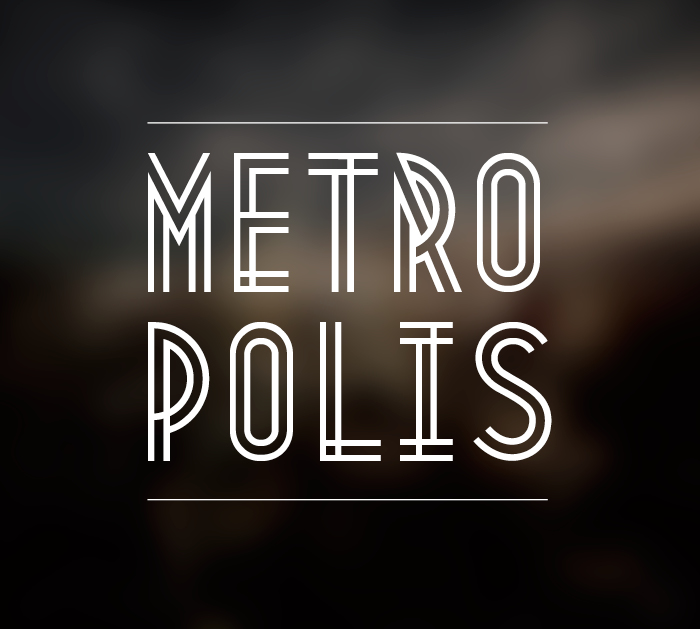
2. Geared
Geared is designed by Ben Dalrymple which is an industrial inspired Condensed Slab Serif in 4 weights -thin, regular, bold, and extrabold.
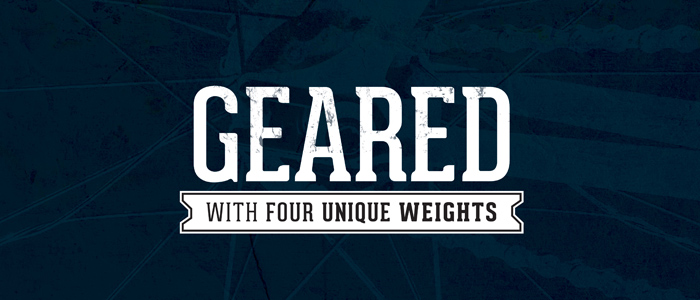
3. Intro
Intro is a great font that strongly express the geometric makeup and structure. The basic letters of the Alphabet like “A”, “O” and “H” are built or based on principles of simple geometric forms – triangles, circles and squares.
4. Forum
Forum font is an Antiqua with classic “Roman” proportions. It is intended for titles and headlines but can be used to set body texts too.
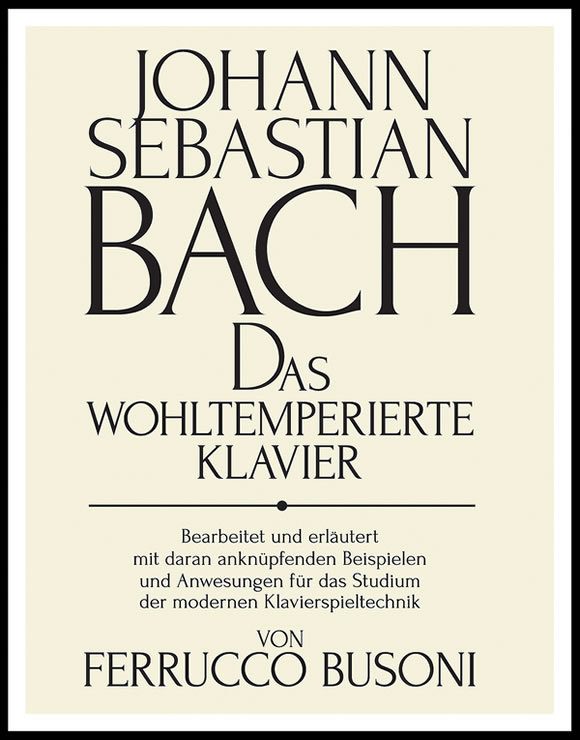
5. Prosto
Prosto is designed by Emelyanov Pavel that has multilanguage support and could be used as in titles, as in body text.
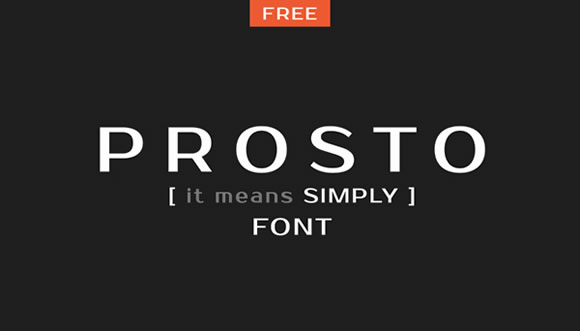
6. Jura
Jura is an elegant serif typeface of narrow proportions with distinguishing details like its rounded, wedge shaped serifs.
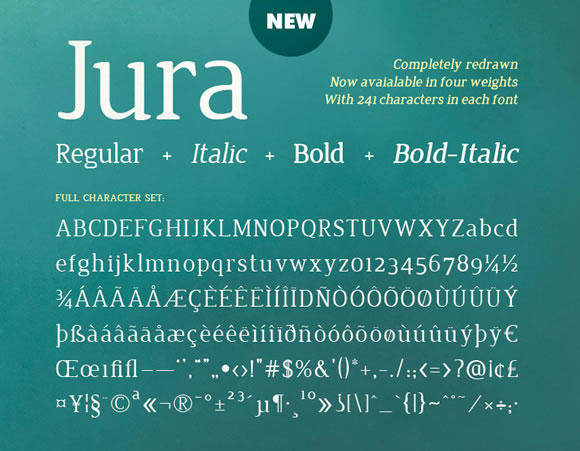
7. Bree
Bree is a friendly upright italic font which is a serif cousin of TypeTogether’s award winning font. It is designed by Veronika Burian and José Scaglione. It’s best known for its originality, charming appearance and versatility.